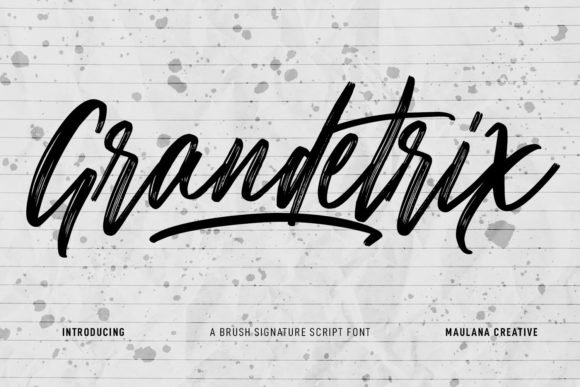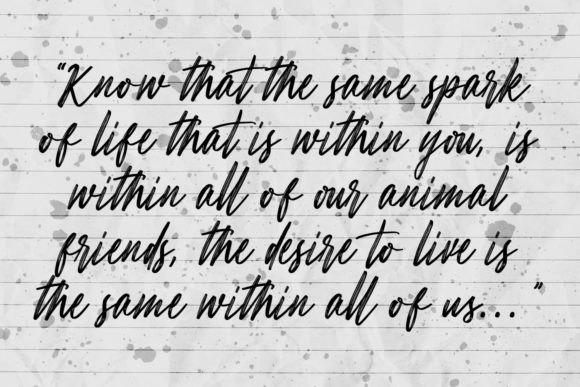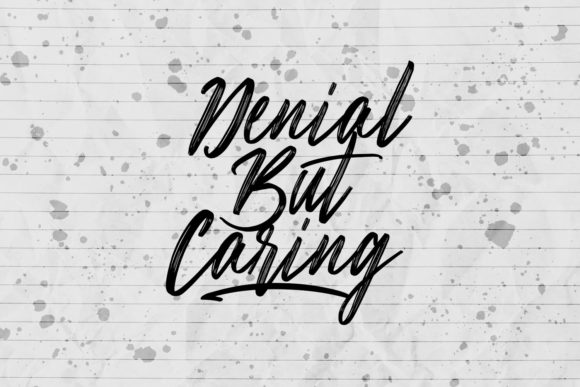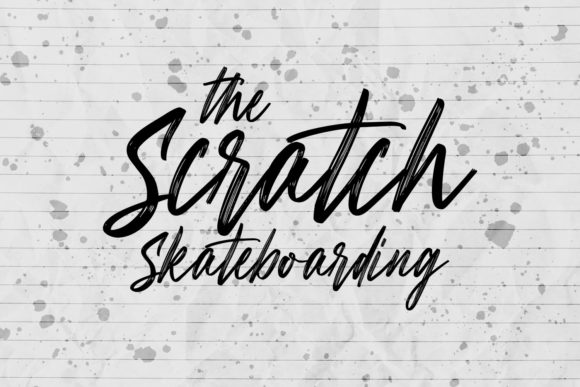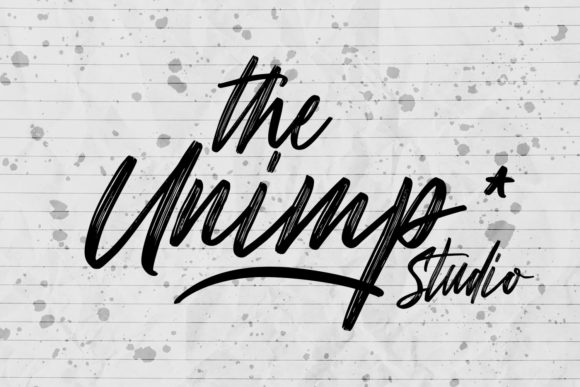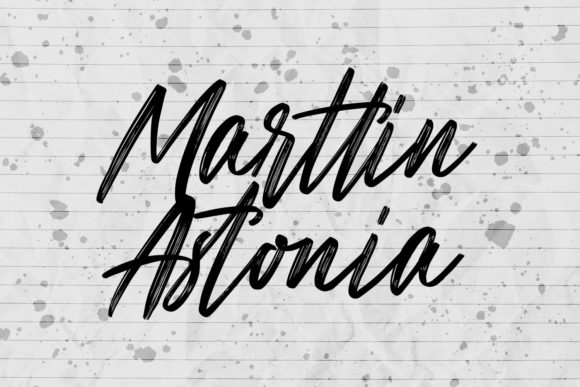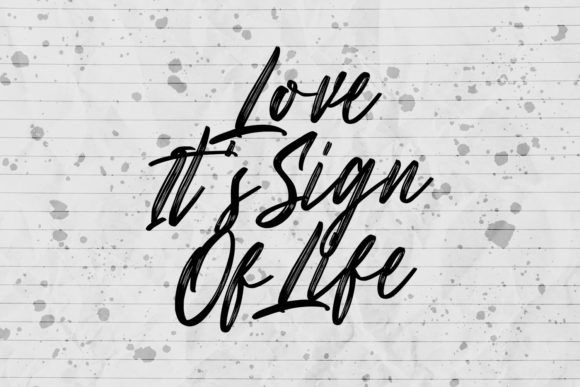
Discover the Elegance of Grandetrix Font
Have you ever been sitting at your desk, staring at a blank page, trying to bring a design to life? The cursor blinks, and your mind is a jumble of ideas, but nothing seems to flow. Then, out of nowhere, a font catches your eye, and everything falls into place. For many designers, this is the moment when inspiration strikes, and the creative process begins.
Introducing the Grandetrix Font, a stunning brushed script font designed to elevate your designs to new heights. With its medium contrast strokes, fun characters, ligatures, and alternates, this font is perfect for adding a touch of sophistication and elegance to any project. Whether you’re working on a branding project, a wedding invitation, or a promotional campaign, the Grandetrix Font is sure to make a lasting impression.
Grandetrix Font Key Features
- Font Family: Grandetrix Font comes in a single font family with multiple styles, including Regular, Italic, Bold, and Bold Italic.
- Font Size: Grandetrix Font is designed to be scalable, with sizes ranging from 8pt to 72pt, making it suitable for various applications, from small text to large headings.
- Resolution: Optimized for high-resolution displays, Grandetrix Font is perfect for use in digital media, such as websites, mobile apps, and digital publications.
- Unique Characteristic: Grandetrix Font features a unique blend of geometric and organic shapes, giving it a distinctive and modern aesthetic.
- Language Support: Grandetrix Font supports a wide range of languages, including Latin, Cyrillic, and Greek scripts, making it a versatile choice for global applications.
Grandetrix Font Review
Overall, I found the Grandetrix Font to be a unique and attention-grabbing addition to any design project. Here’s a breakdown of my honest review:
- Customization Options: Grandetrix Font offers a wide range of customization options, allowing users to tailor the font to their specific needs.
- Flexibility: The font is versatile and can be used for a variety of projects, from digital interfaces to print materials.
- Legibility: The font is highly legible, making it easy to read even at small font sizes.
- Limited Character Set: Grandetrix Font has a relatively small character set, which may limit its use in certain projects.
- Not Ideal for Body Text: While the font is great for headings and titles, it may not be the best choice for body text due to its busy design.
Overall, I would recommend the Grandetrix Font for designers looking for a unique and eye-catching font for their projects. While it has some limitations, its customization options and flexibility make it a valuable addition to any design toolkit.
Grandetrix Font Practical Application Guide
Grandetrix is ideal for creating bold, attention-grabbing designs, such as:
Tips for Getting the Most Out of Grandetrix
To get the most out of Grandetrix, experiment with different font sizes, styles, and colors. You can also use layer blending modes and opacity to create unique effects. Additionally, use Grandetrix in combination with other bold fonts to create a visually appealing design.
Alternatives to Grandetrix Font
Carolyna Pro is a modern, elegant script font. It is ideal for use in high-end branding, invitations, and other creative projects where a sophisticated look is desired. In comparison to Grandetrix Font, Carolyna Pro has a more refined and polished appearance, making it suitable for formal events and upscale designs.
Great Vibes is a beautiful, cursive script font with a relaxed and friendly feel. It is perfect for use in casual branding, social media graphics, and other creative projects where a laid-back atmosphere is desired. Compared to Grandetrix Font, Great Vibes has a more casual and approachable appearance, making it suitable for everyday use.
Pacifico is a stylish, elegant script font with a beachy vibe. It is ideal for use in branding, packaging, and other creative projects where a relaxed, summery feel is desired. In comparison to Grandetrix Font, Pacifico has a more laid-back and casual appearance, making it suitable for use in outdoor and summer-themed designs.